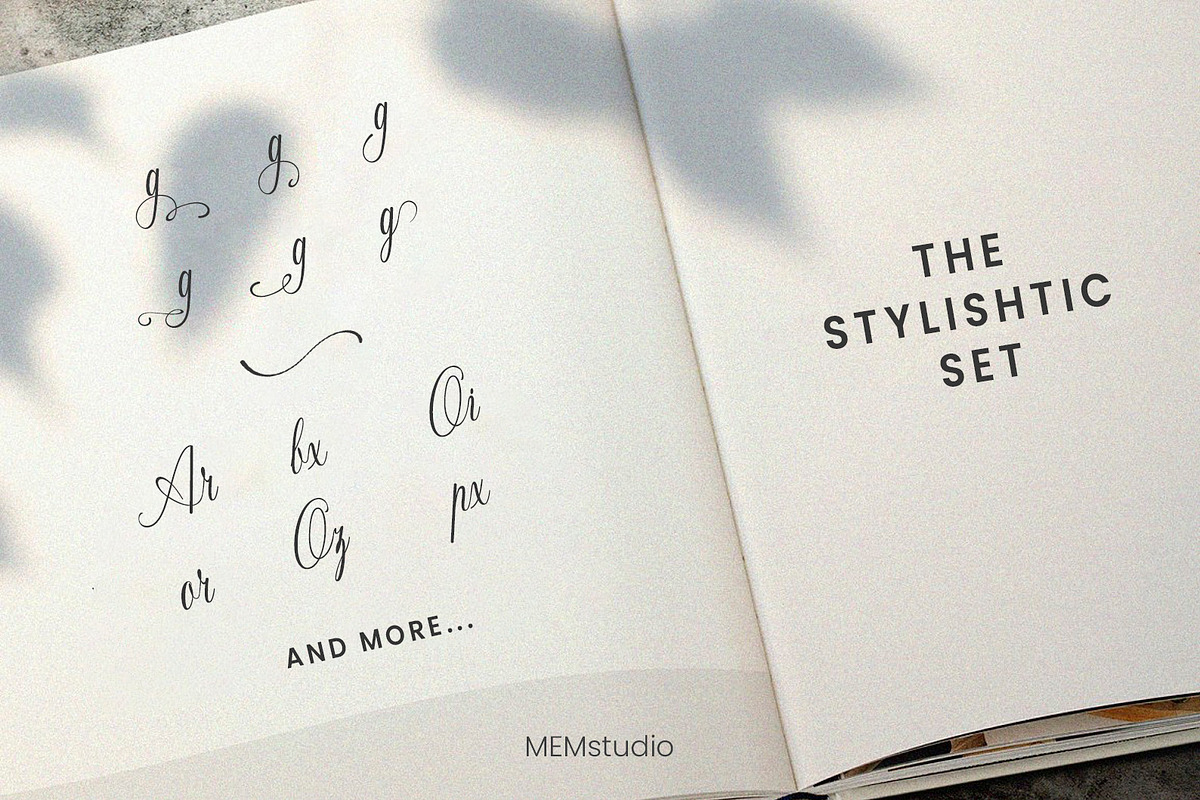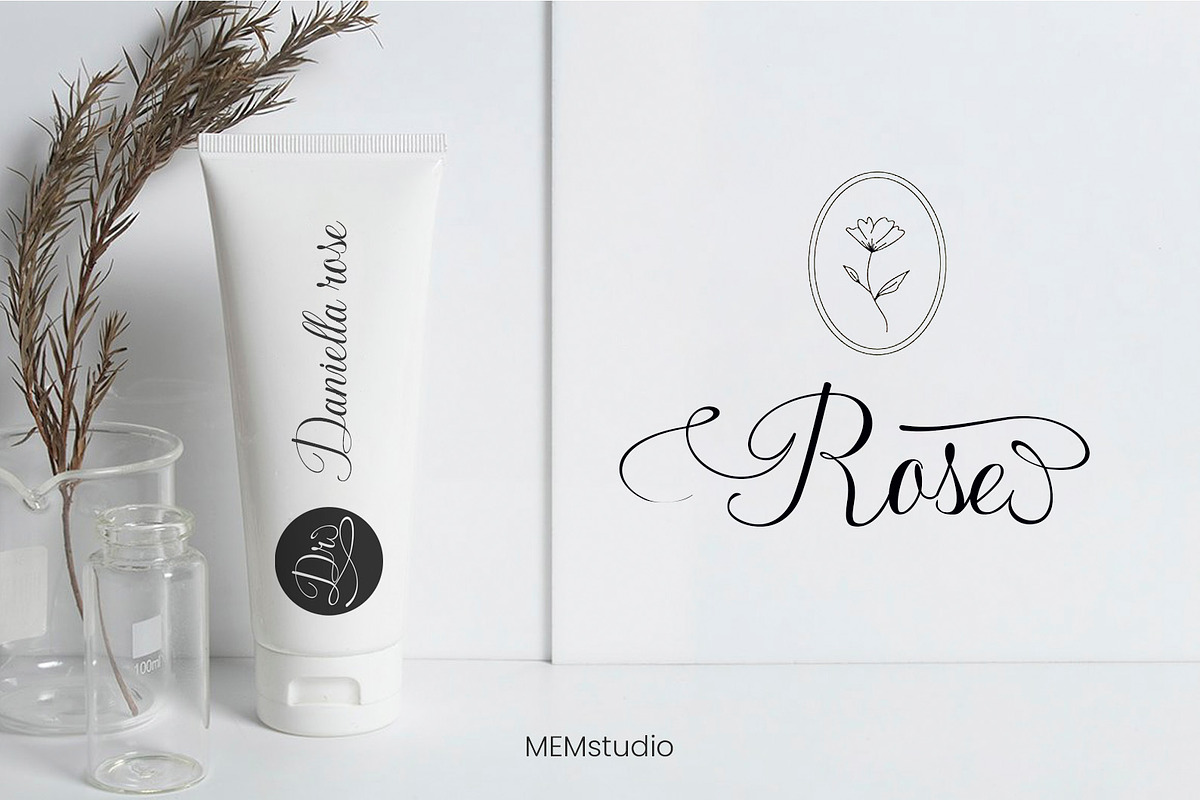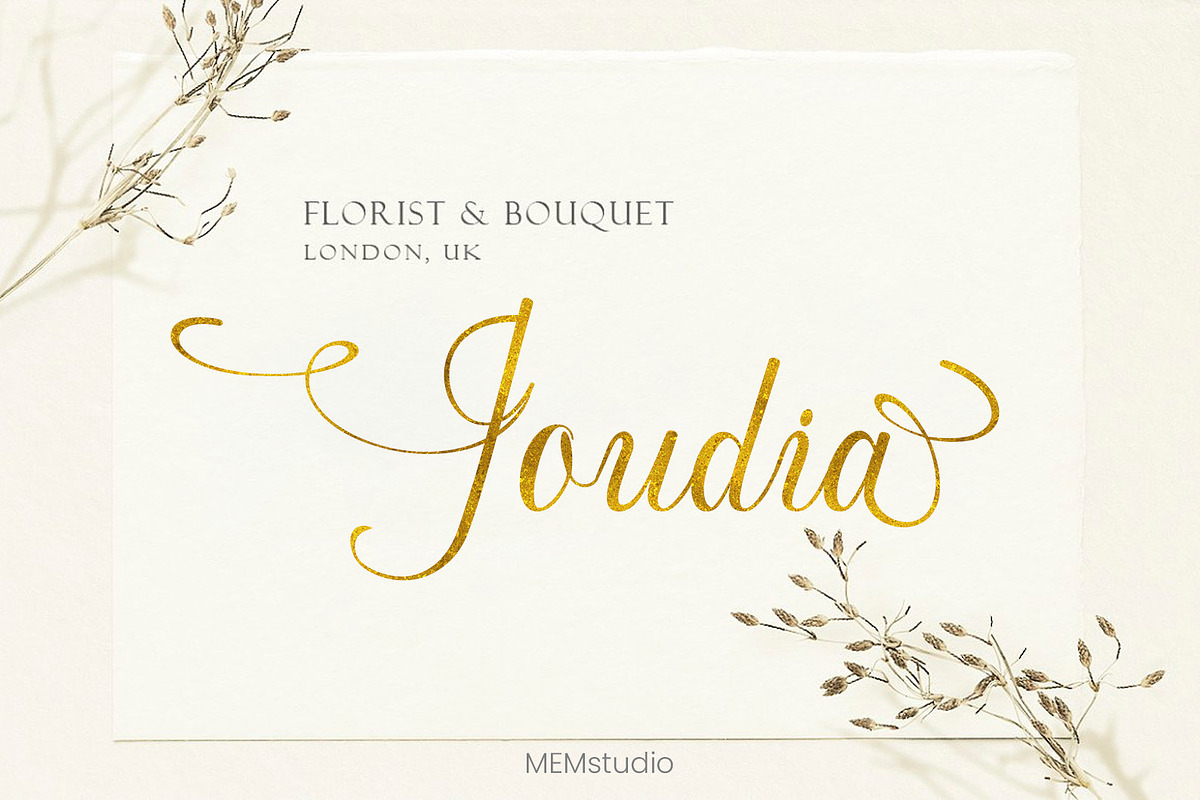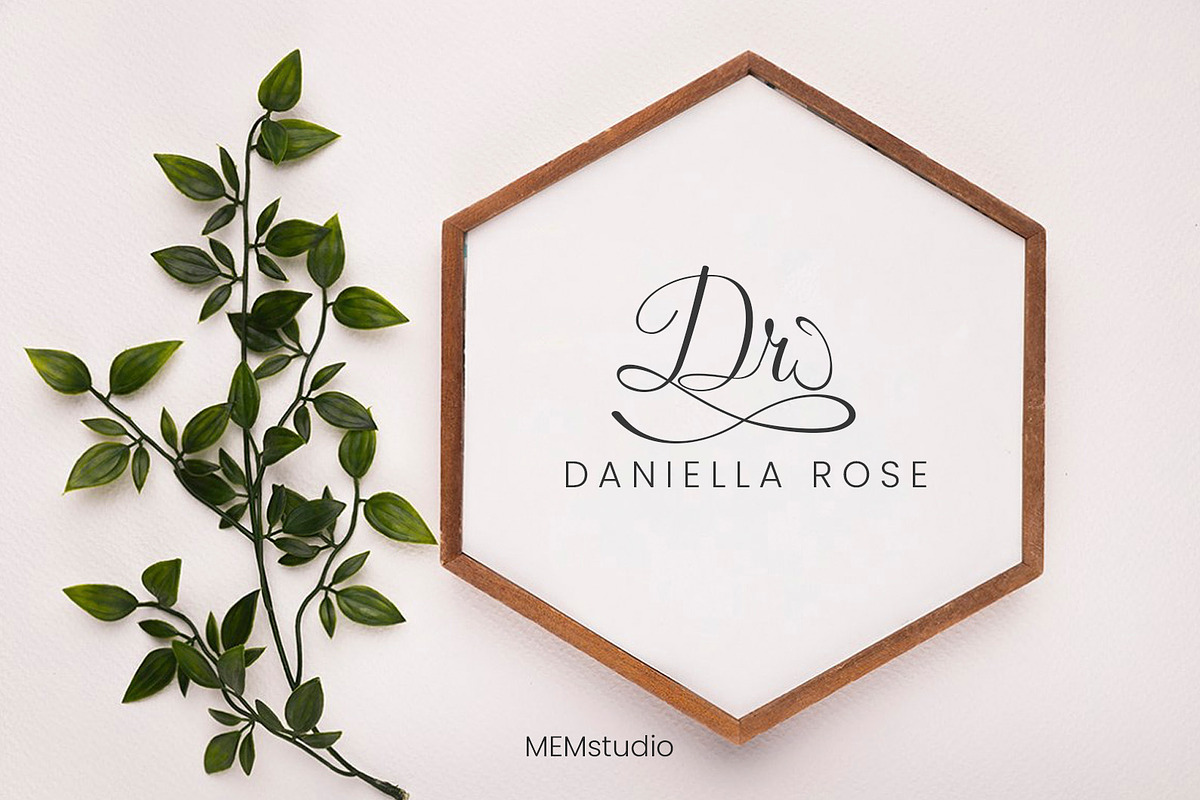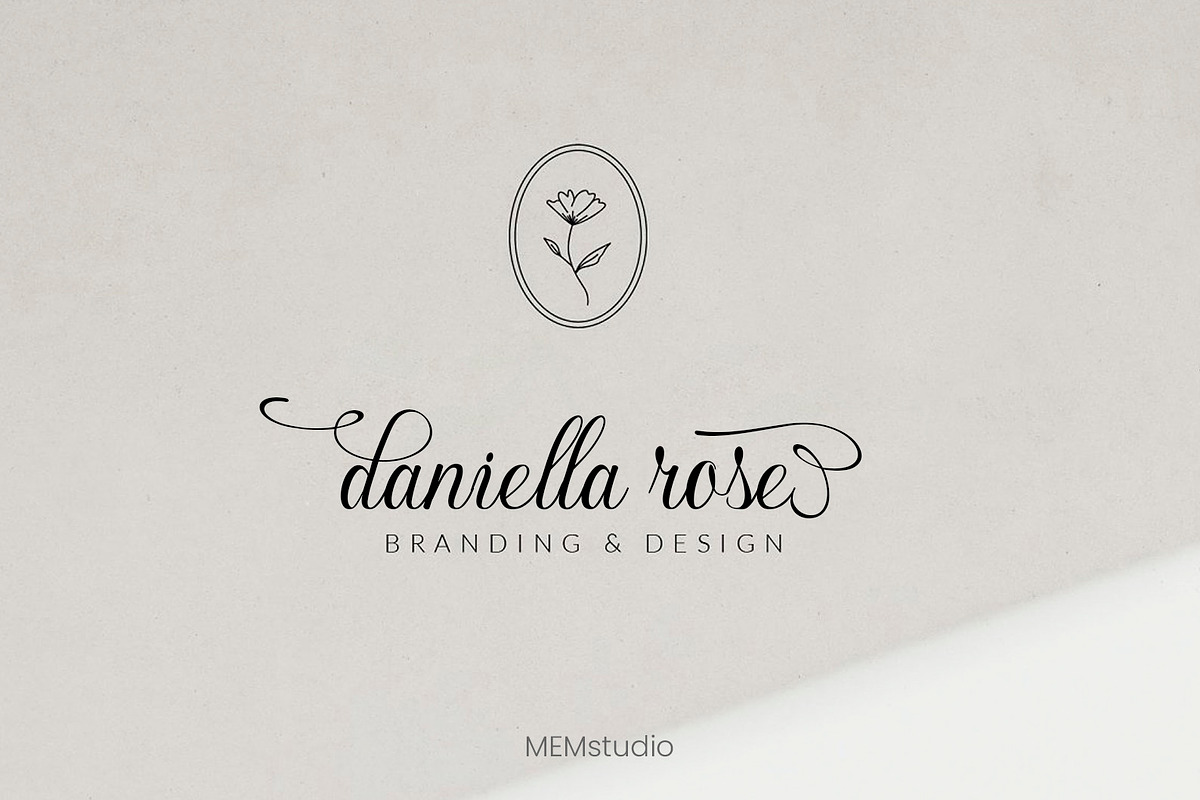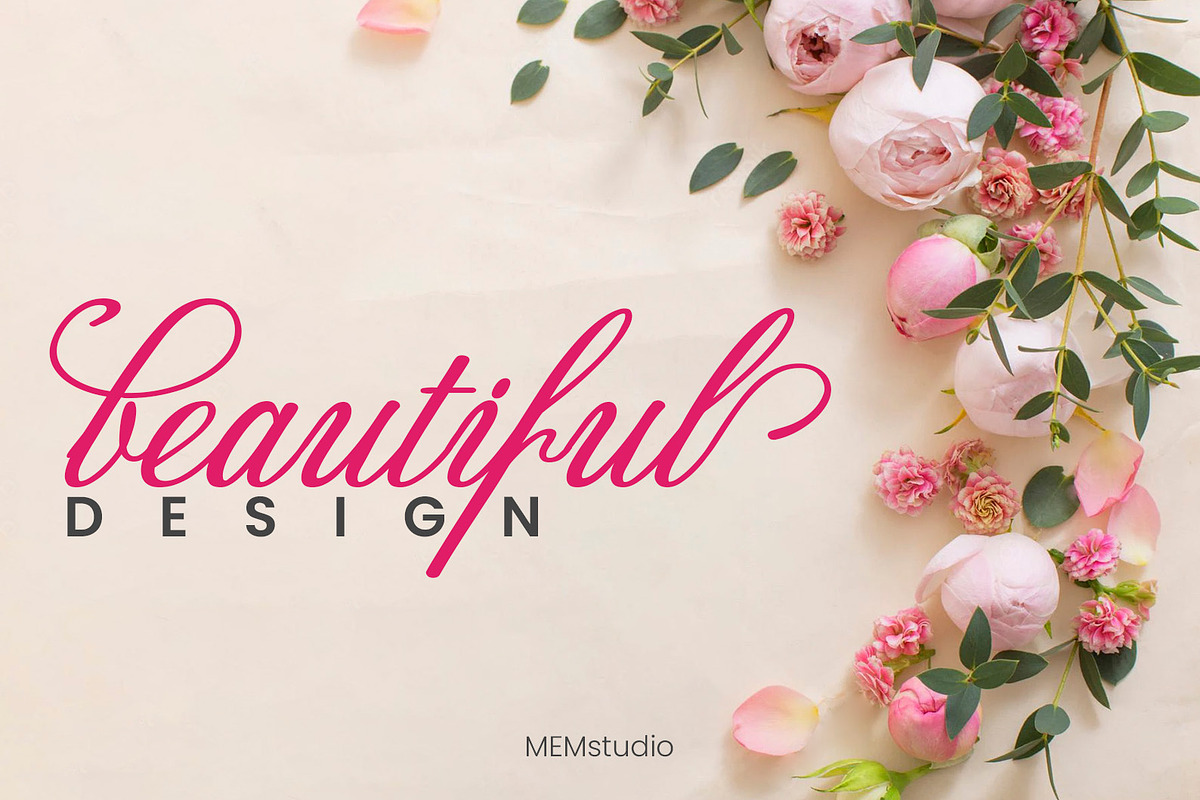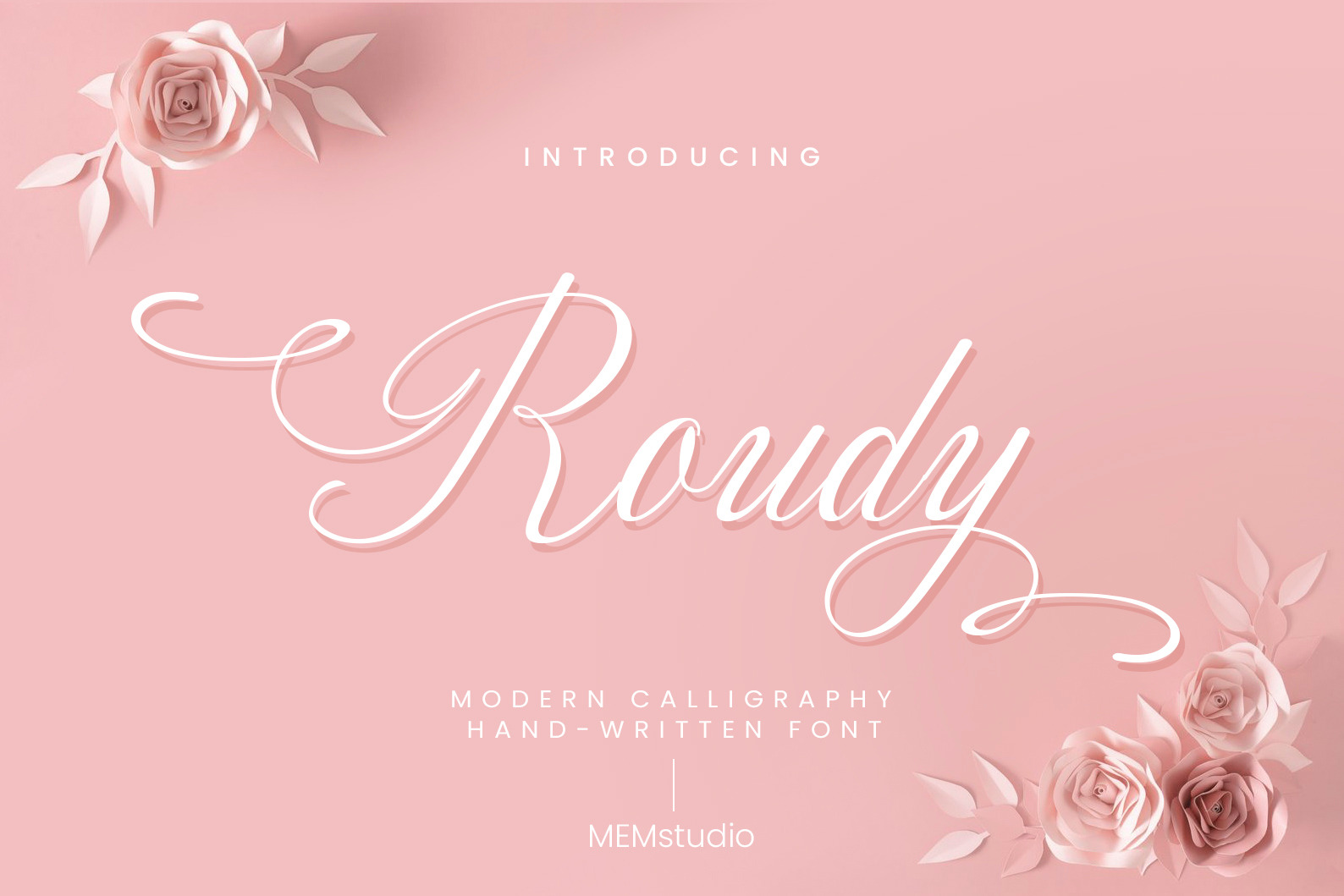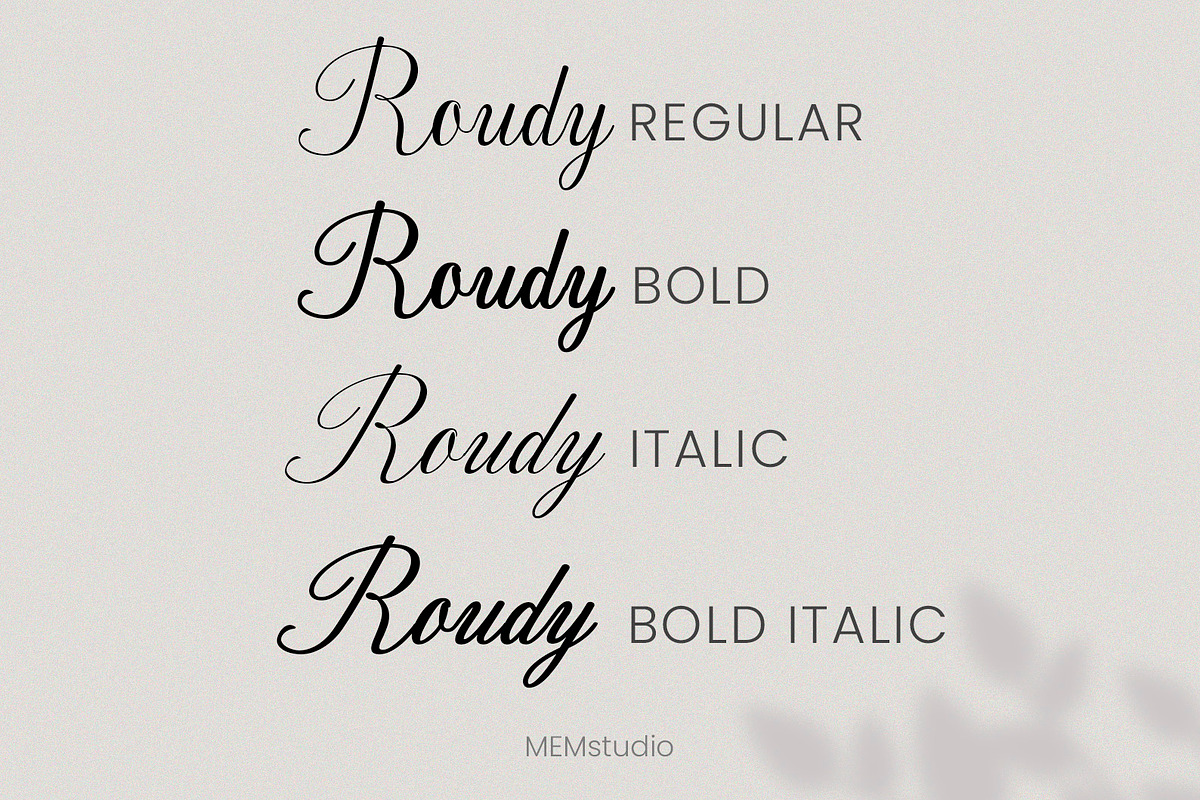
Roudy - Script font -
Discover the elegance and timeless beauty of the "Roudy" font. With its handwritten script style, this font brings a touch of charm and authenticity to your creations.
The "Roudy" font is truly one-of-a-kind, with gracefully curved strokes and fluid lines that mimic handwriting. Each character is precisely drawn to capture the essence of cursive writing, creating a pleasant and harmonious reading experience.
Whether you're designing elegant invitations, distinctive logos, personalized greeting cards, or eye-catching designs, "Roudy" lends itself to a multitude of creative projects. Its natural and flowing look adds a touch of sophistication and originality to your compositions.
The "Roudy" font also offers a variety of special characters, ligatures, and stylistic alternatives to further customize your creations. You can easily add ornaments, creative ligatures, and special touches to give a unique flair to your designs.
With "Roudy", every word comes to life with elegance and expressiveness that will surely captivate your audience. Unleash your creativity and use this font to add a touch of sophistication and charm to your projects.